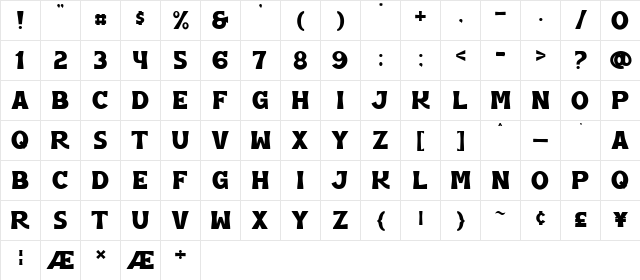
New Innerspeaker Regular
| Foundry | Neature Visual |
| Designer | Neature Visual |
Design Context for New Innerspeaker Typeface
New Innerspeaker offers clean, dependable letterforms without strong stylistic allegiance, making it a practical choice for designers who need flexibility.